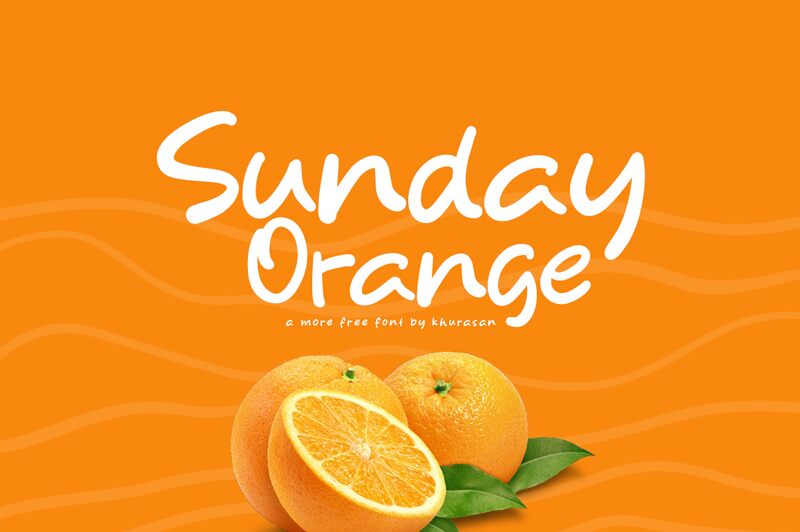
Sunday Orange
Sunday Orange, a charming handwritten font by Khurasan, brings a touch of whimsical elegance to any project. With its semi-light weight and semi-expanded width, this font exudes a sense of playfulness and sophistication.
Ideal for wedding invitations, greeting cards, and children's books, Sunday Orange adds a personal and unique flair to your designs. Its flowing strokes and organic feel make it perfect for creating captivating headlines or conveying heartfelt messages.